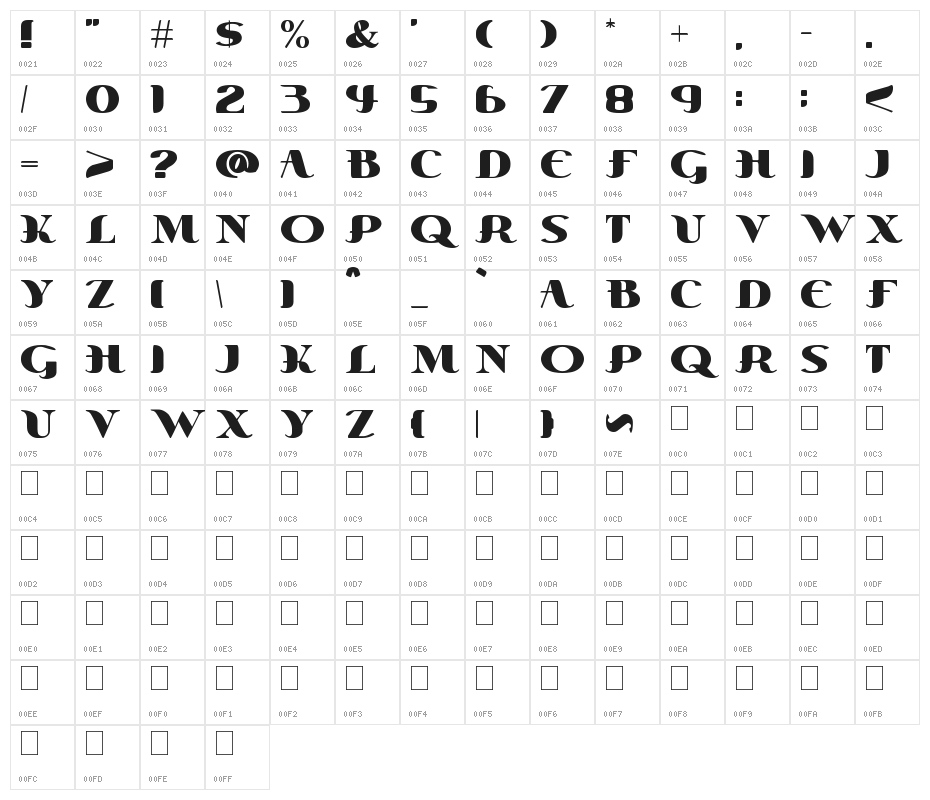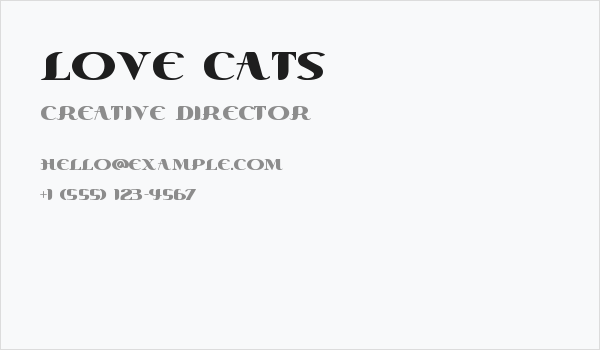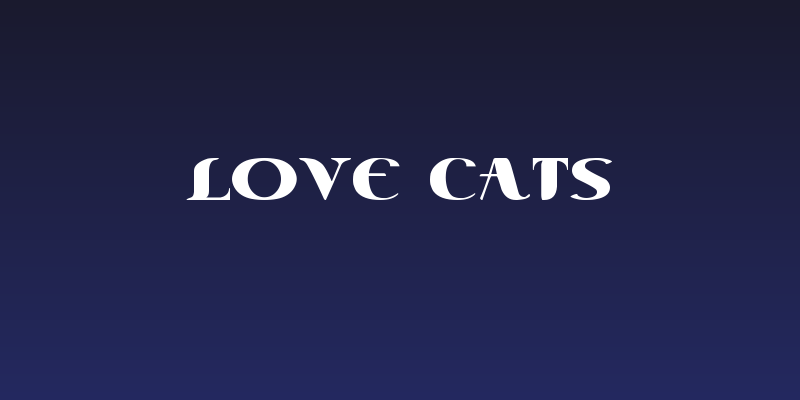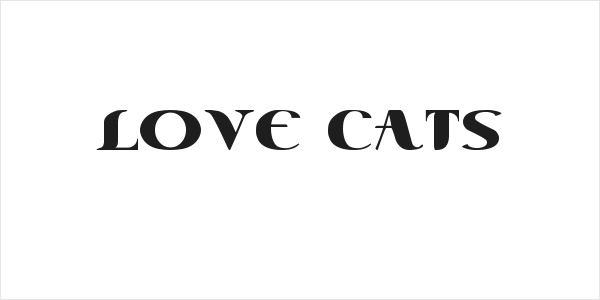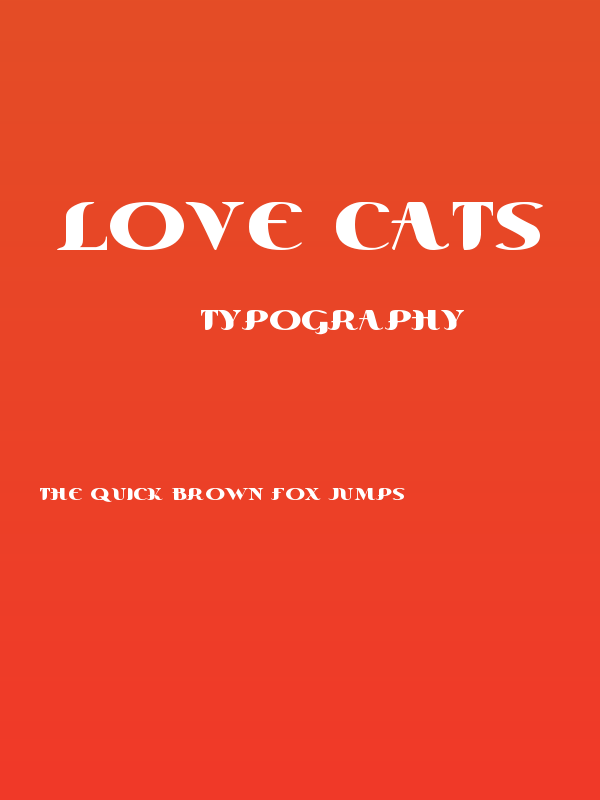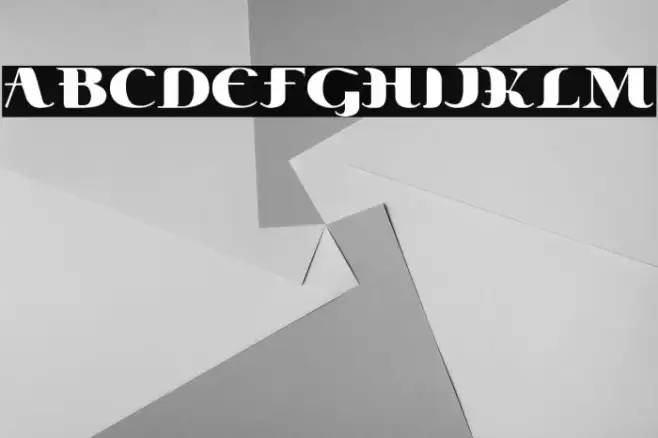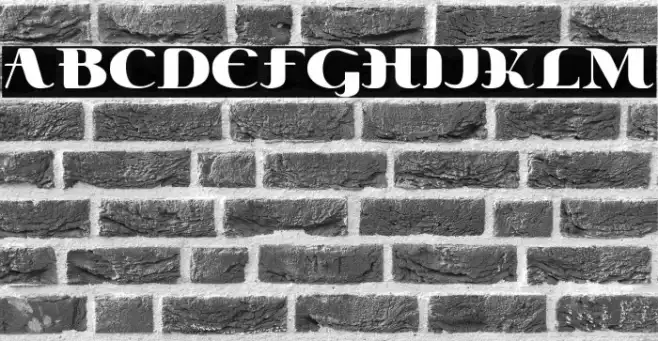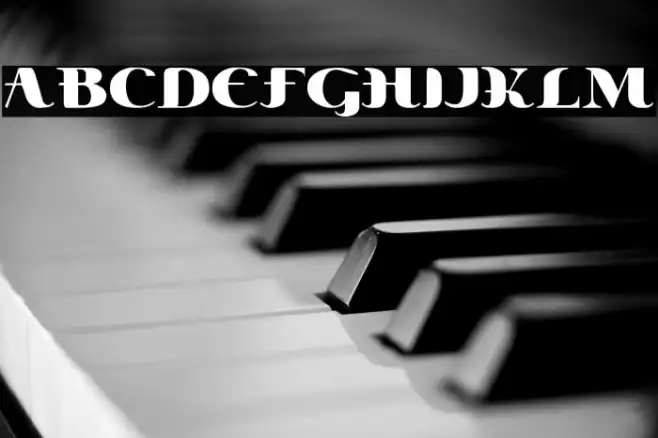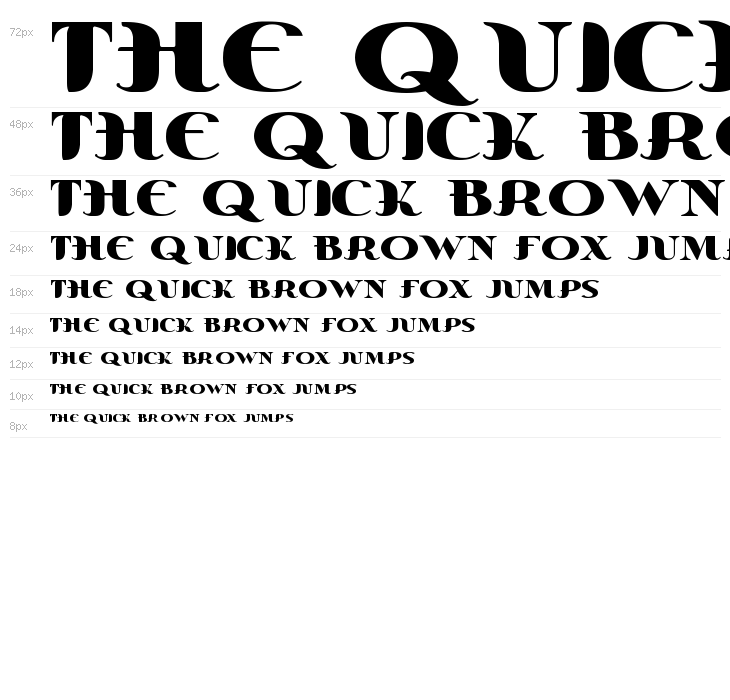
Love Cats Font
Love Cats Description
This font features a bold and distinctive style with high contrast between thick and thin strokes. The characters have a unique, artistic flair with sharp, angular serifs and a slightly condensed appearance. The uppercase letters are particularly striking, with a strong presence and a sense of movement. The lowercase letters maintain the same boldness, providing a cohesive look across the typeface. The numbers and special characters are equally bold, ensuring readability and consistency. This font's design is both modern and decorative, making it suitable for a variety of creative applications.
| Proposed Projects | Ideal for branding, posters, headlines, and any project requiring a strong visual impact. |